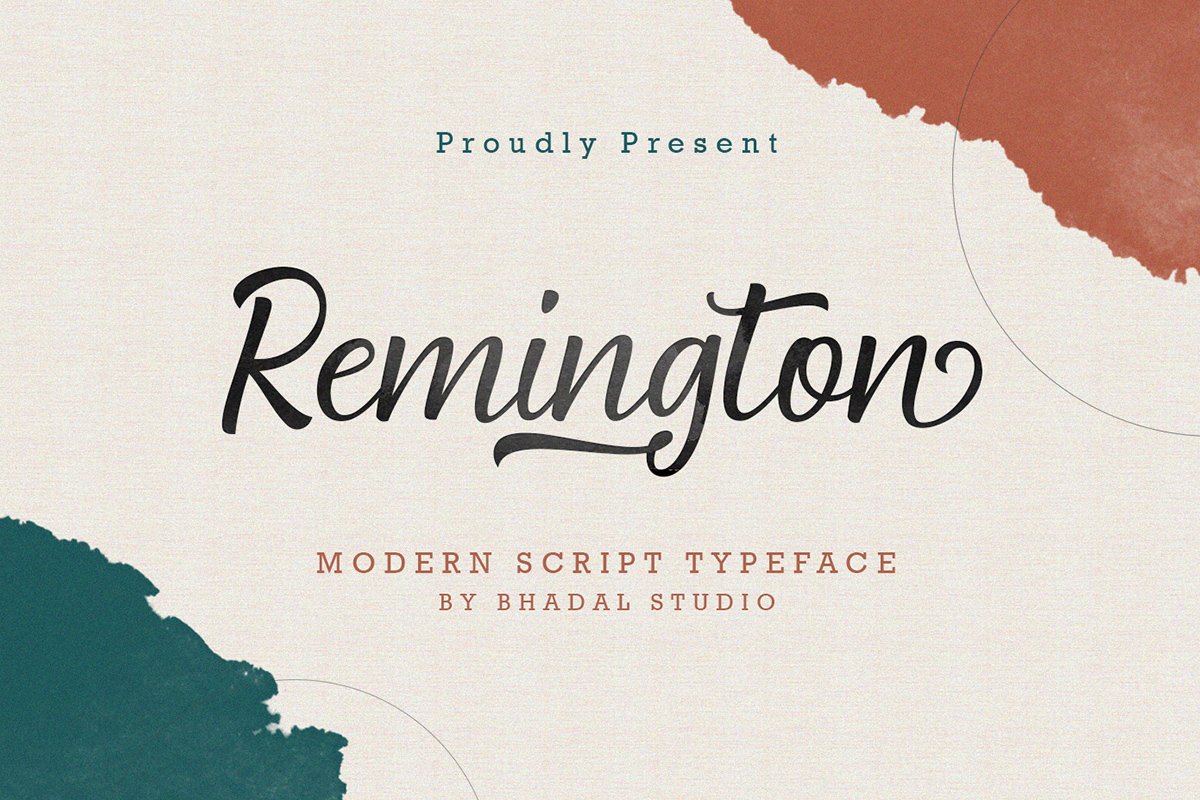
Remington Modern Script
Remington
Introducing our latest stuff, the Remington Modern Script  is an elegant and bold stylish script font. Great for logos design, packaging, t-shirts, branding, wordmarks & signboard, apparel, and more. Has several stylistic alternates that can be used as needed.
You will get a complete set of uppercase and lowercase, multilingual, punctuation, ligatures, stylistic alternates a-z.